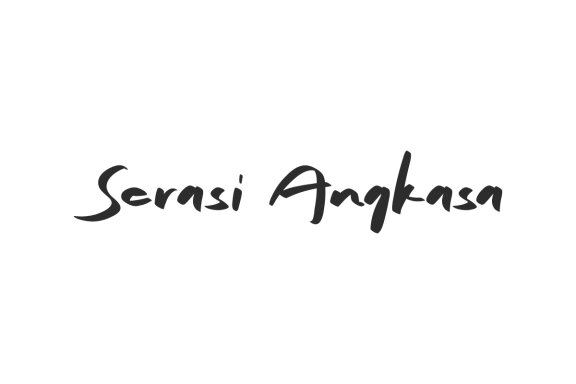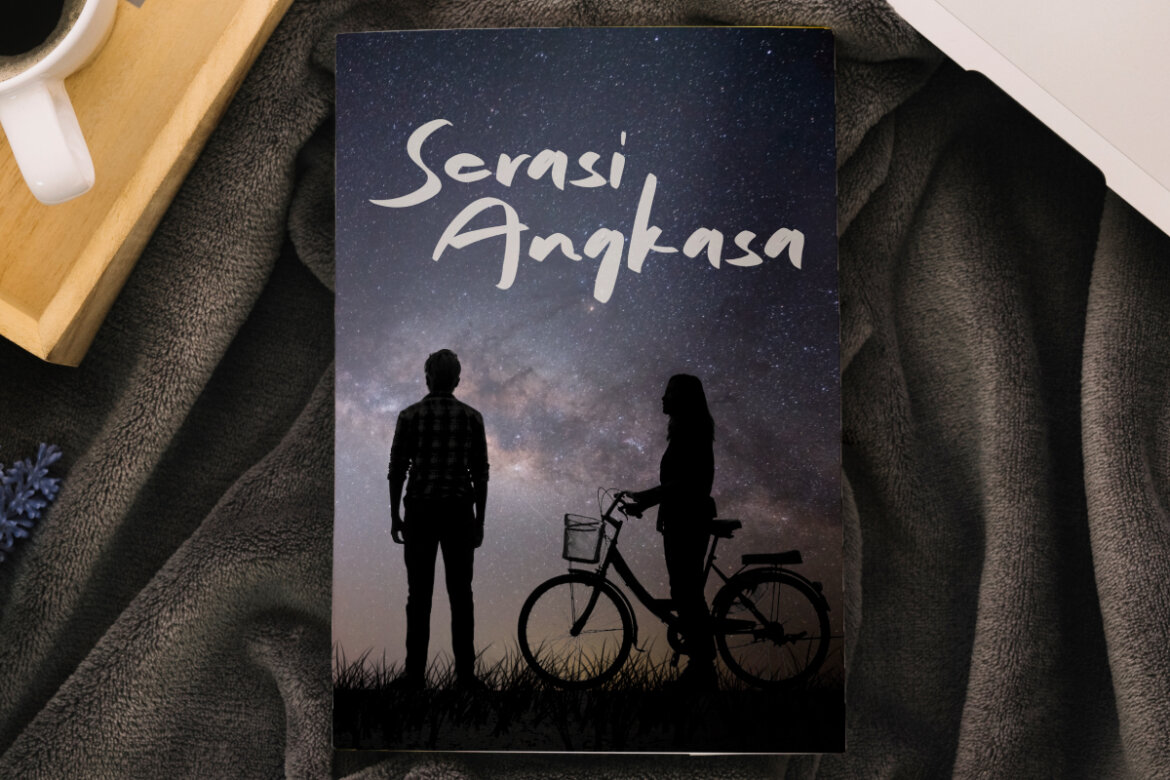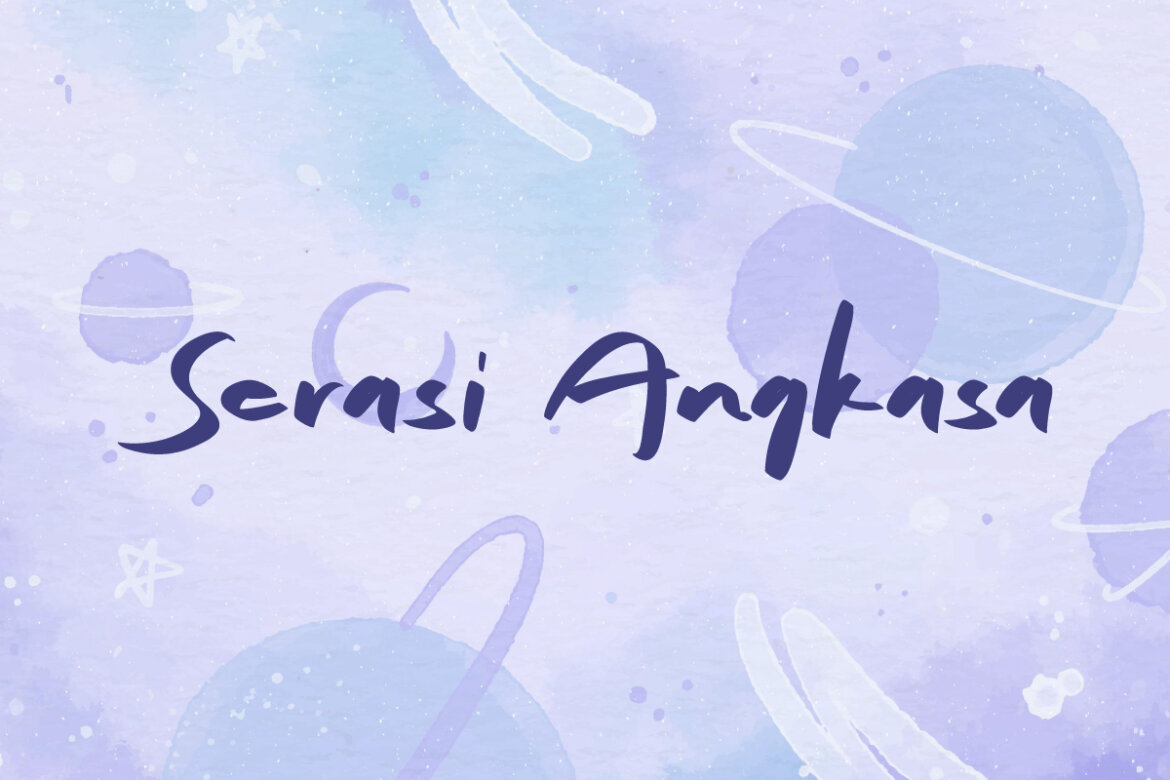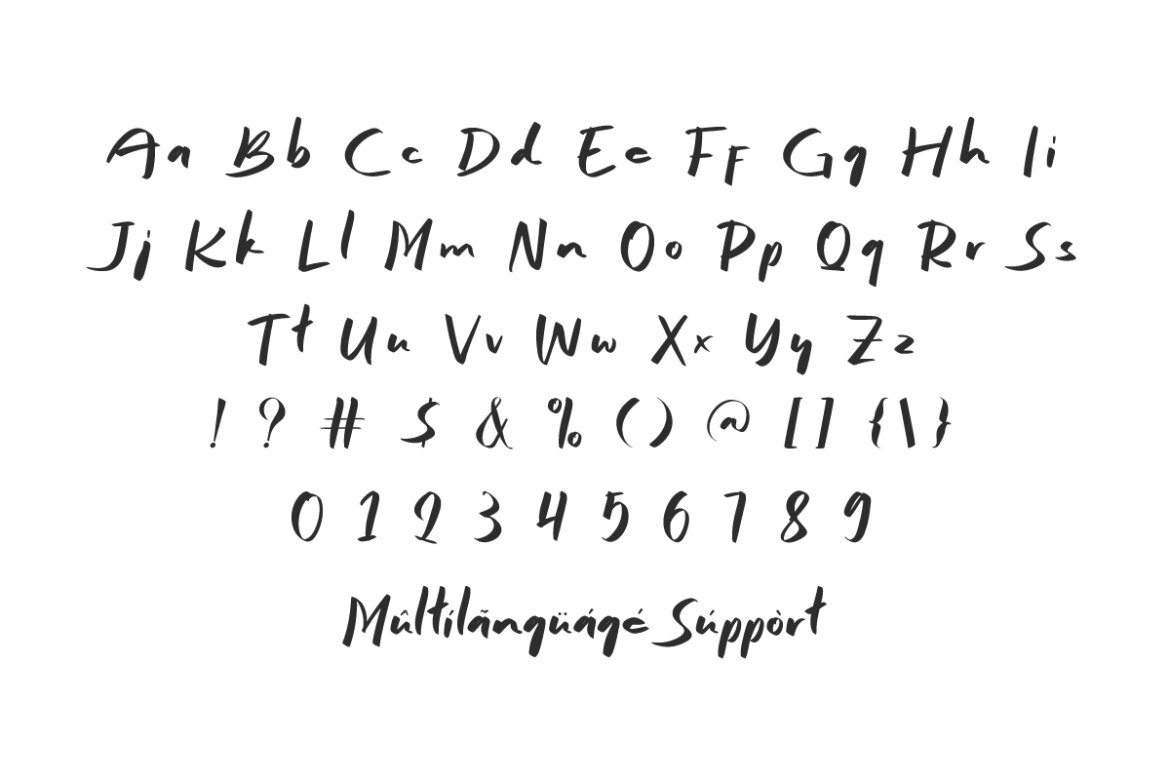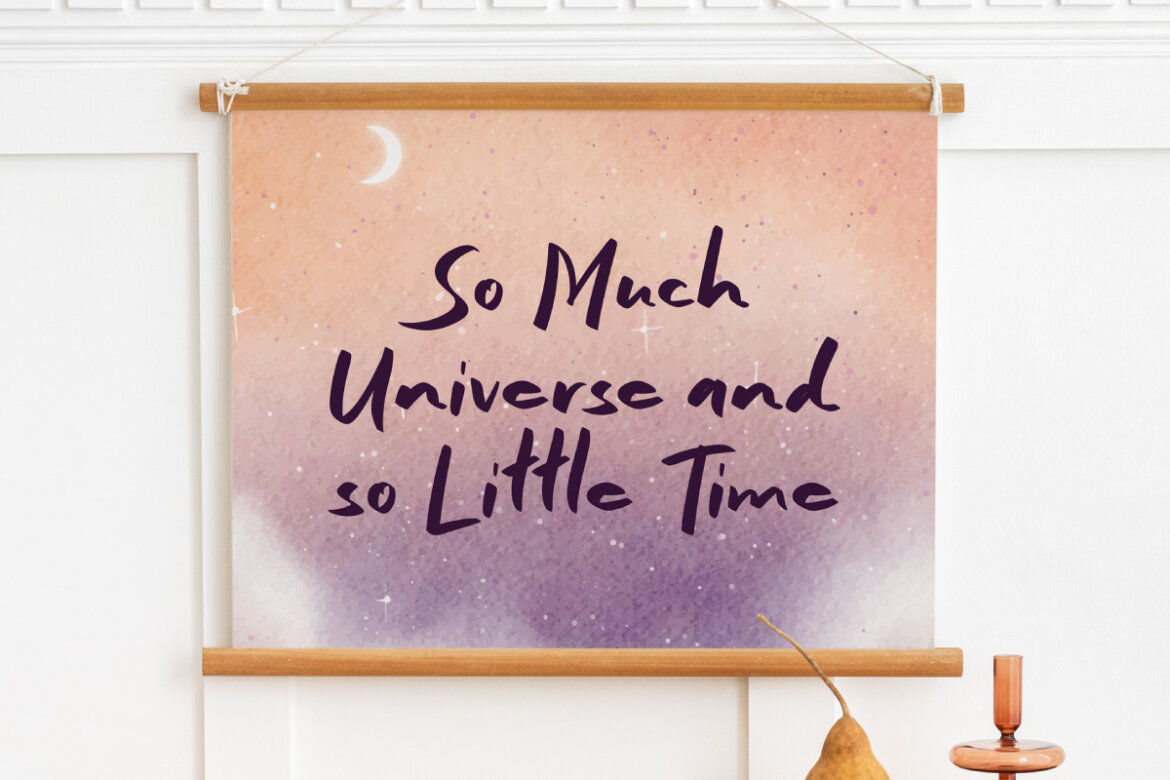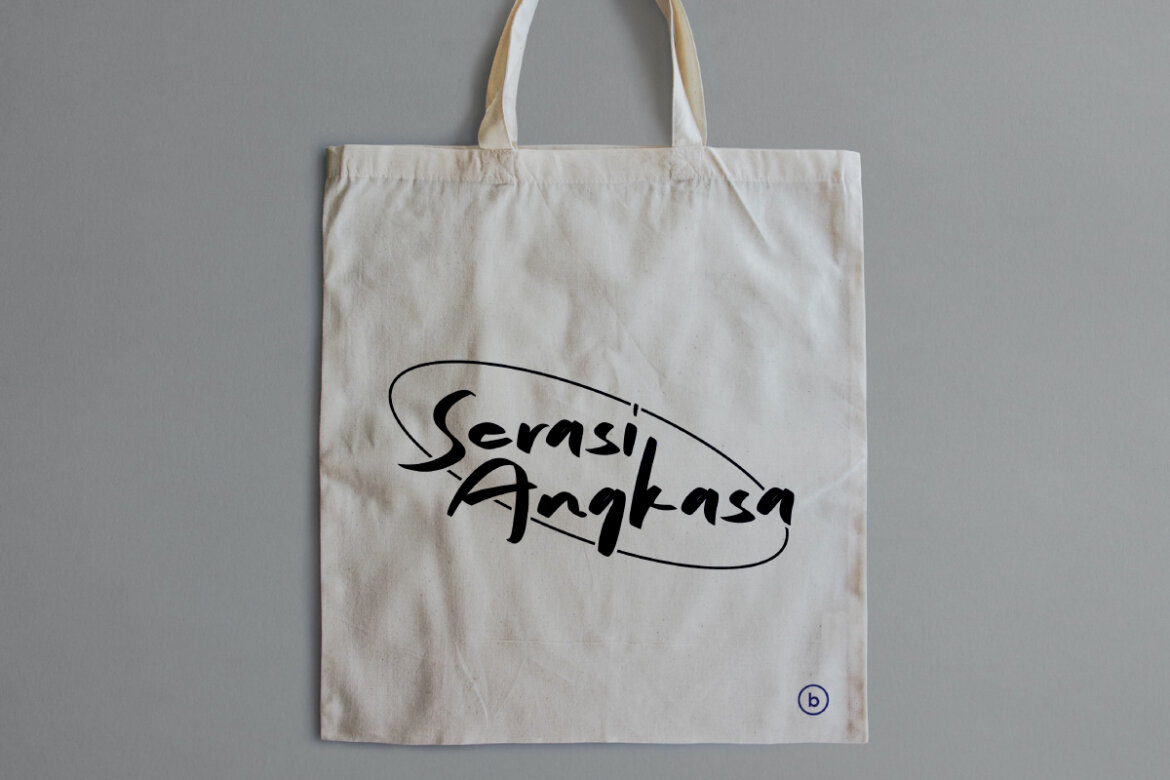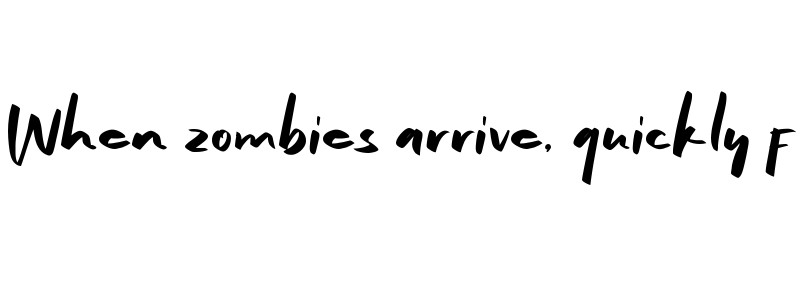
Serasi Angkasa
Serasi Angkasa Font is a unique handcrafted display font that serves to enhance your designs in a distinctive and easy-to-use way. This font is perfect for app displays, blogs, covers, custom bag, greeting cards, headers, invitations, logos, quotes, stationery, watermarks, and more. It will add a casual and personal touch to your design.
Serasi Angkasa Font is a friendly marker display font here to provide a relaxed and cozy feel. It already includes a complete set of Basic Uppercase and Lowercase Characters, Numbers, Punctuation and Symbols. Perfect for cafeteria, clothing brands, content creator, crafts, crockery, furniture, graphic design, home decoration, photography, pottery, restaurant, web designer, writers that will present an authentic look and its own charm.